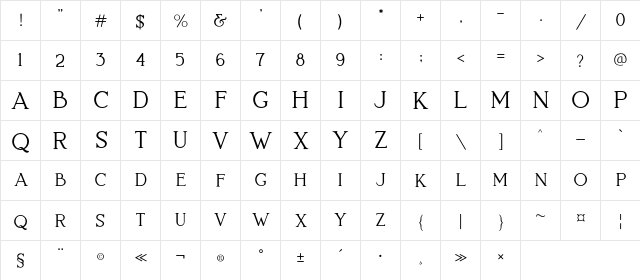
Lovelyn Regular
Design Context for Lovelyn Typeface
Lovelyn takes a measured approach to typography — its balanced proportions and neutral character make it a reliable workhorse for both digital and print work.
Pro Tip: Pair Lovelyn with a font of contrasting weight or personality to build a more expressive typographic hierarchy.